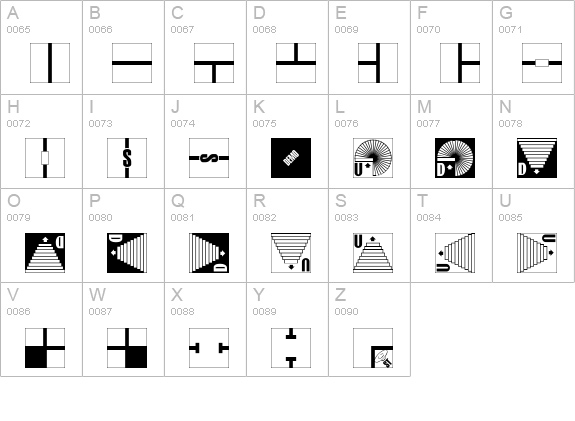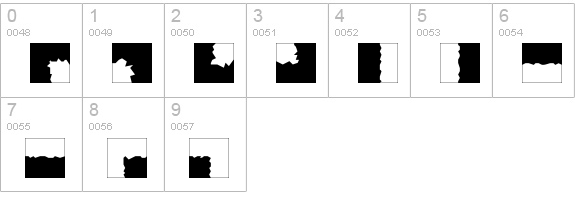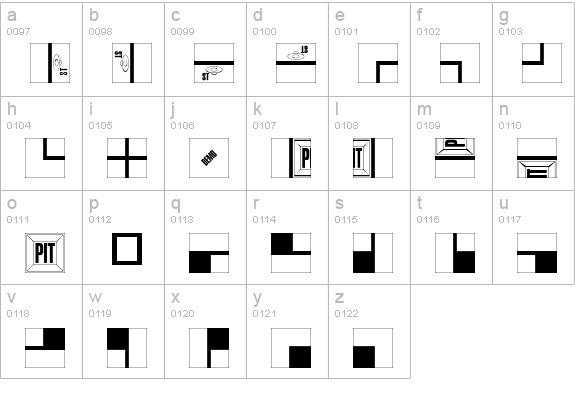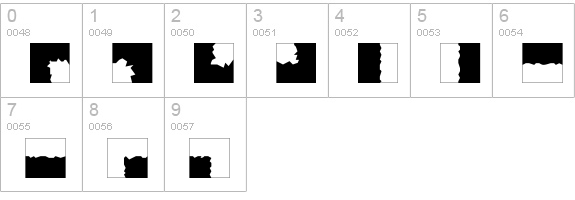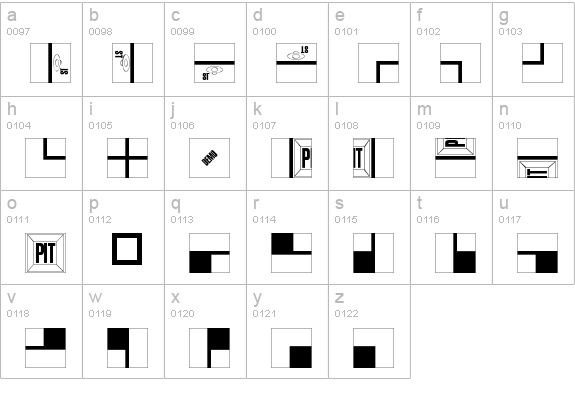
Dungeoneer font is an enchanting and mystical typeface that transports you to the depths of ancient dungeons and mythical realms. With its intricate details and bold, adventurous style, this font is perfect for adding a touch of magic to your designs. Whether you're creating fantasy-themed projects, gaming materials, or simply looking to infuse your work with a sense of mystery and adventure, Dungeoneer font is sure to captivate your audience. Best of all, Dungeoneer font is available for free download at FontsMarket.com. So go ahead and unleash your creativity with this captivating and versatile typeface that will bring your designs to life in the most magical way possible.